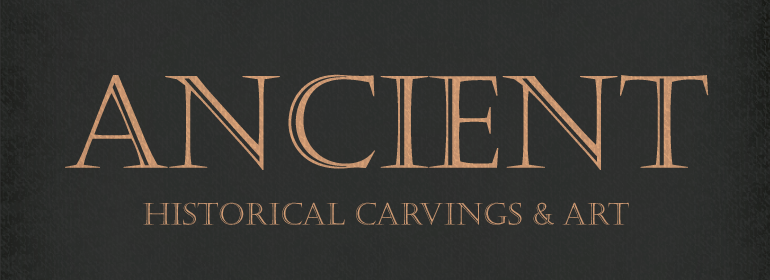
Castellar®
Castellar is a capital letter typeface from John Peters, named after a location in the Alps. It first appeared in 1957 with Monotype. Peters modelled the design on the Roman script Scriptura Quadrata as it was used in the first two centuries of the Roman Empire. One distinguishing characteristic is the quadratic proportions of many letters, which are however mixed with circular and narrow forms. The original script was called Scriptura Quadrata because the ancient engravers used rectangular stone plates for their work. Castellar is a typical title typeface and is best used in large and very large point sizes to highlight its classic elegance.